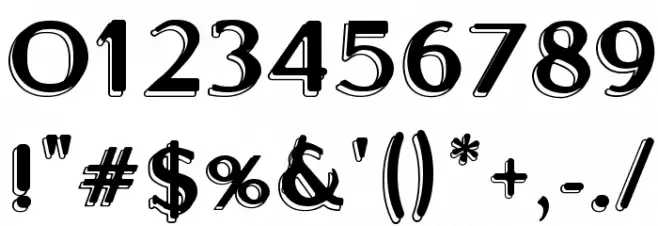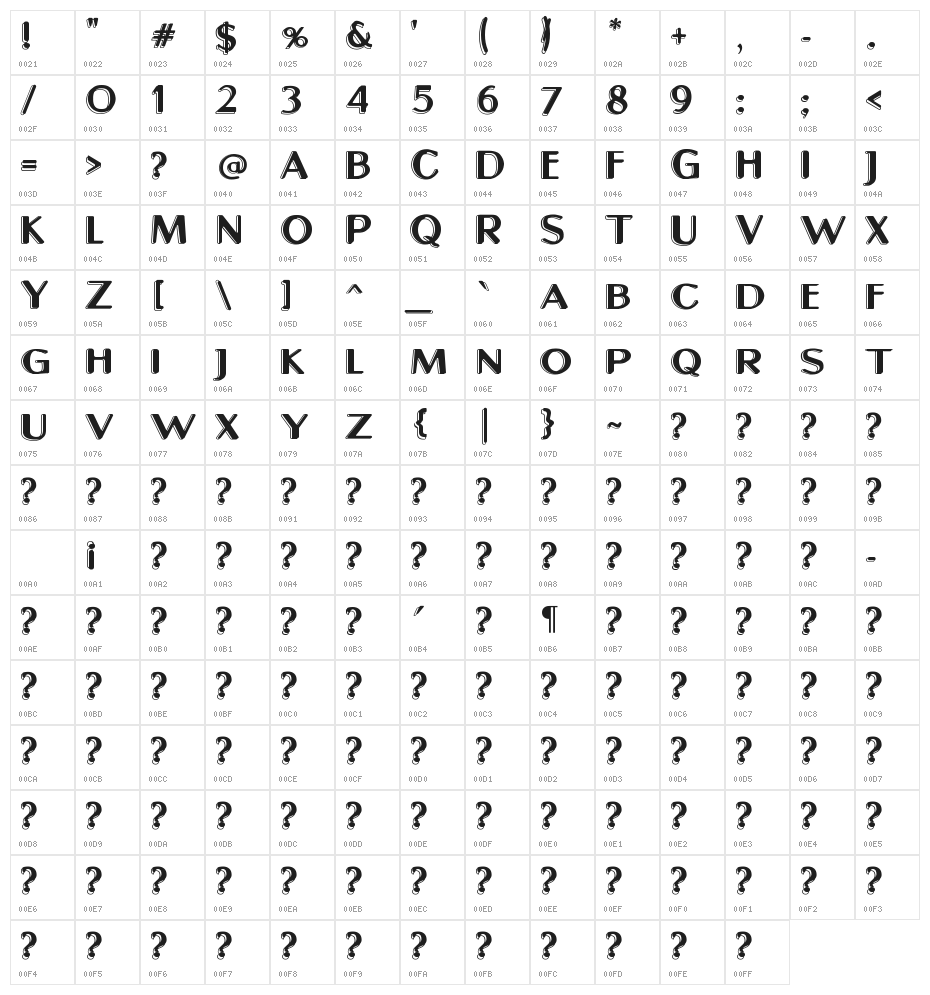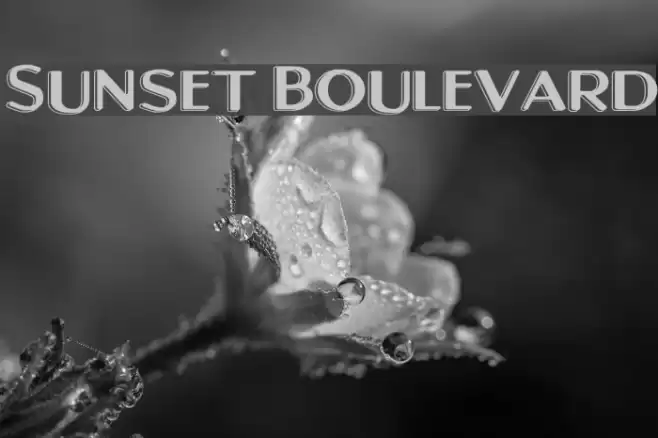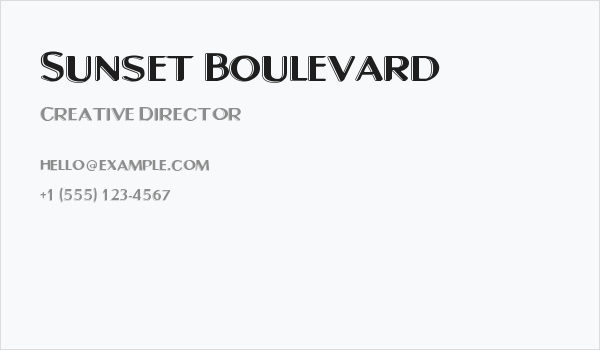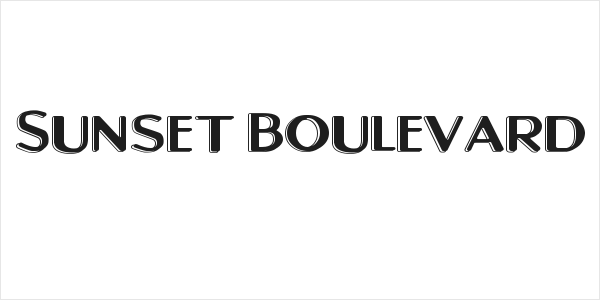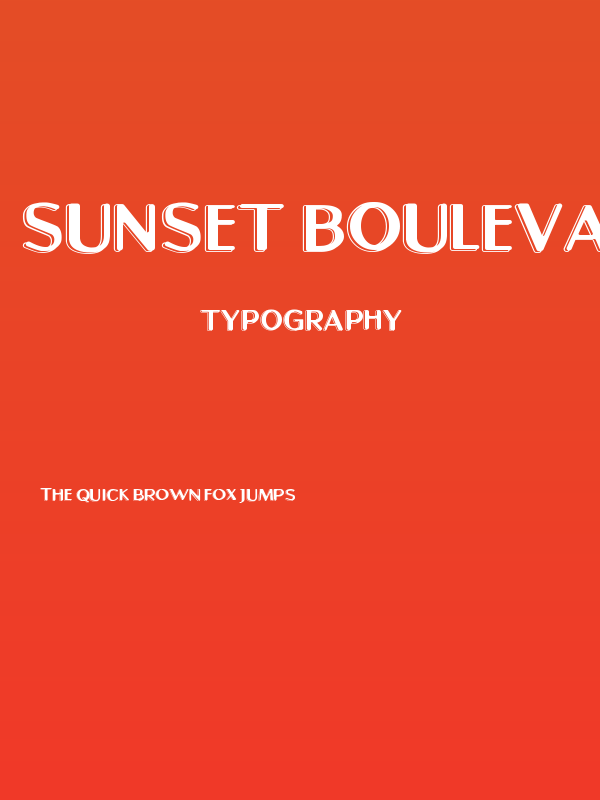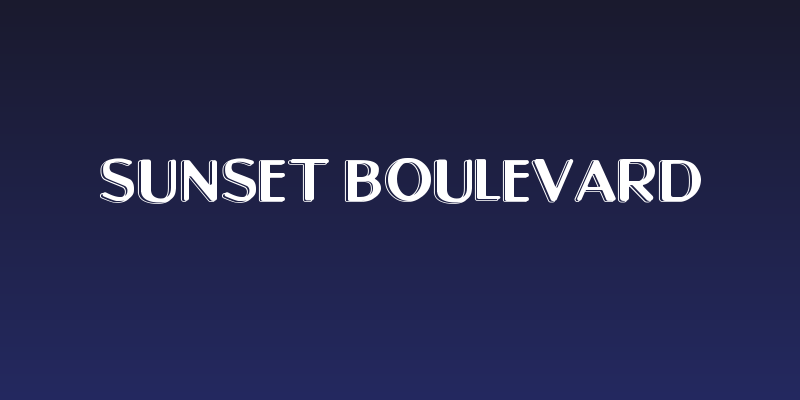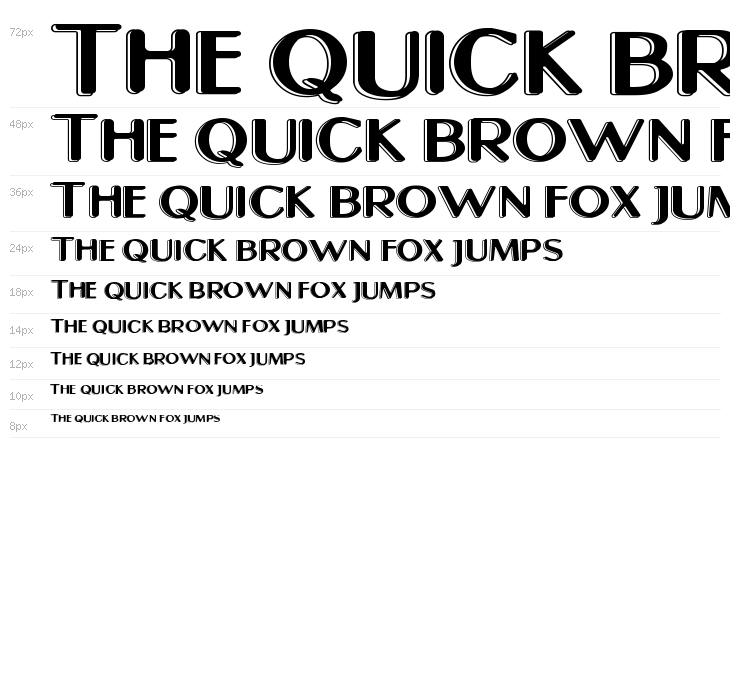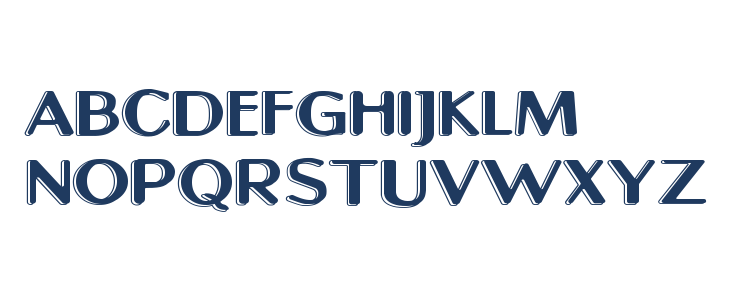
Sunset Boulevard Font
Sunset Boulevard Description
This font features a bold and striking design with a three-dimensional effect, achieved through the use of shadowing. The characters are uppercase and lowercase with a consistent thickness, giving them a robust and impactful appearance. The numbers and special characters maintain the same stylistic approach, ensuring uniformity across all glyphs. The font's design is reminiscent of vintage signage, making it ideal for projects that require a touch of retro flair. Its boldness and unique style make it stand out, perfect for grabbing attention.